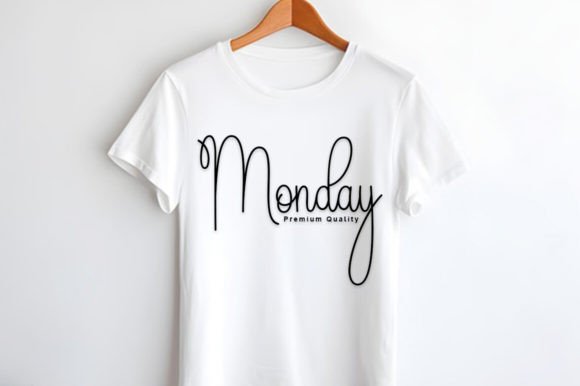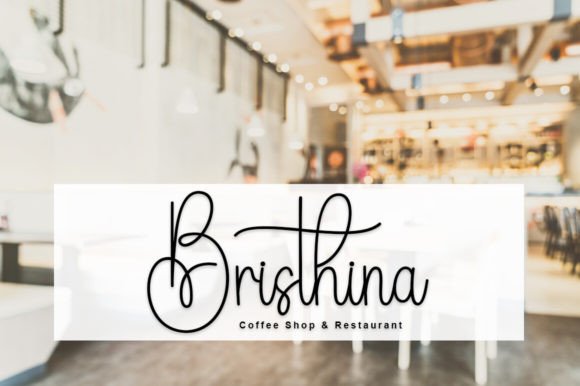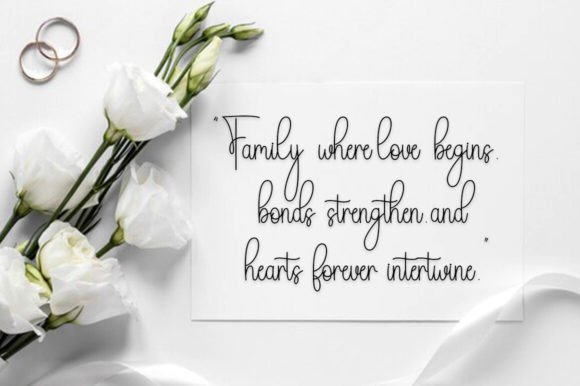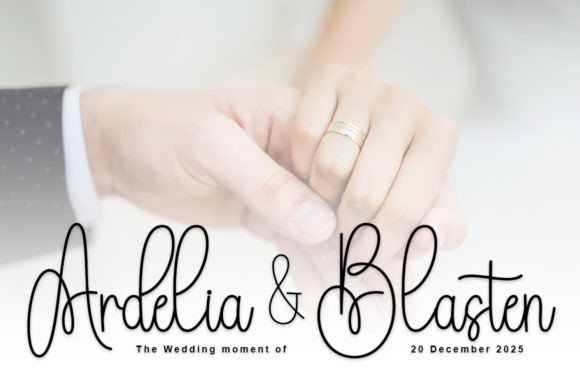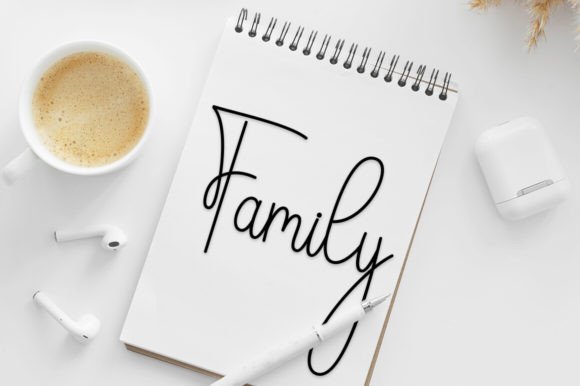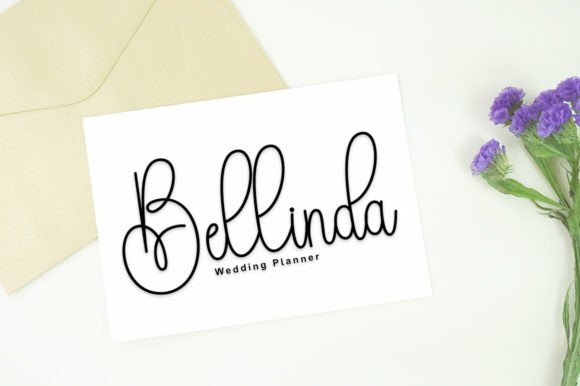
Discover the Elegance of Brother Signature Font
Are you looking for a font that adds a touch of sophistication and individuality to your designs? Look no further than the Brother Signature Font. This lovely font mimics the elegance of a personal signature, making it perfect for adding a personalized and handcrafted feel to your projects.
The Characteristics of Brother Signature Font
Brother Signature Font is characterized by its graceful strokes and stylish flair. The font’s design is reminiscent of a handwritten signature, with flowing lines and a refined aesthetic. This makes it an ideal choice for designers and crafters who want to add a touch of elegance to their work.
Uses of Brother Signature Font
Brother Signature Font is versatile and can be used in a variety of design projects. Some of the most popular uses for this font include:
- Signatures: As its name suggests, Brother Signature Font is perfect for creating signatures that look like they were written by hand.
- Logos: The font’s elegant design makes it a great choice for logos that need to convey a sense of sophistication and style.
- Creative Projects: Whether you’re working on a creative project, such as a branding campaign or a marketing material, Brother Signature Font can add a touch of individuality and elegance.
Why Choose Brother Signature Font?
There are many reasons why Brother Signature Font is a great choice for designers and crafters. Some of the benefits of using this font include:
- Unique and Personalized: Brother Signature Font allows you to add a personal touch to your designs, making them stand out from the crowd.
- Elegant and Sophisticated: The font’s elegant design makes it perfect for projects that require a touch of sophistication.
- Versatile: Brother Signature Font can be used in a variety of design projects, from signatures and logos to creative projects.
Tips for Using Brother Signature Font
Here are some tips for getting the most out of Brother Signature Font:
- Use it sparingly: Because Brother Signature Font is so elegant, it’s best to use it sparingly. Use it for signatures, logos, or headings, but avoid overusing it in your design.
- Pair it with other fonts: Brother Signature Font pairs well with other fonts, such as sans-serif fonts. Experiment with different font combinations to find the one that works best for your project.
- Adjust the size and color: To make the most of Brother Signature Font, adjust the size and color to fit your design. A larger size can make a bold statement, while a smaller size can add a touch of subtlety.
Brother Signature Font is a lovely font that can add a touch of elegance and sophistication to your designs. With its graceful strokes and stylish flair, this font is perfect for signatures, logos, and creative projects. Whether you’re a designer or crafter, Brother Signature Font is a great choice for anyone looking to add a personal touch to their work.
Brother Signature Font in Action
Here are some examples of how Brother Signature Font can be used in different design projects:
- Wedding Invitations: Use Brother Signature Font to add a touch of elegance to wedding invitations, save-the-date cards, and other wedding stationery.
- Branding: Use Brother Signature Font as a logo font or as a font for marketing materials, such as brochures, flyers, and business cards.
- Art and Crafting: Use Brother Signature Font to add a personal touch to art and crafting projects, such as scrapbooking, journaling, and card making.
Brother Signature Font is a beautiful font that can add a touch of sophistication and individuality to your designs. With its elegant design and versatile uses, this font is perfect for designers and crafters who want to create unique and personalized projects. Whether you’re working on a commercial or personal project, Brother Signature Font is a great choice for anyone looking to make a statement.